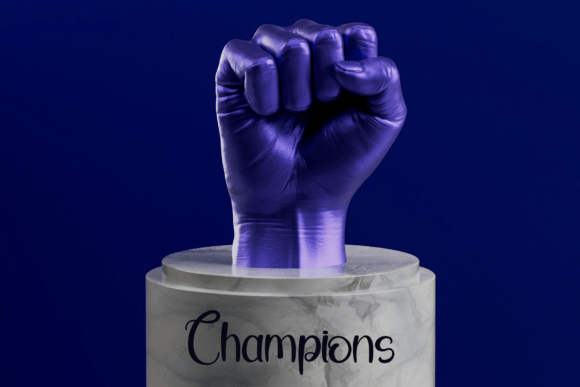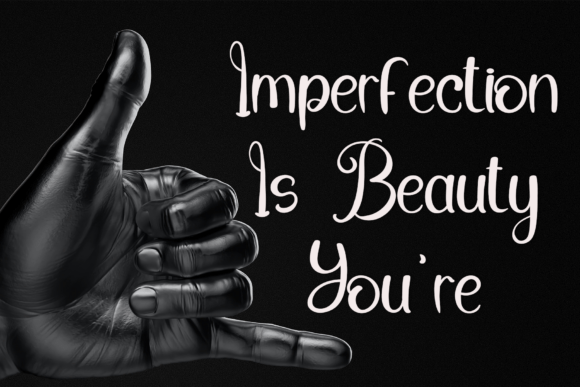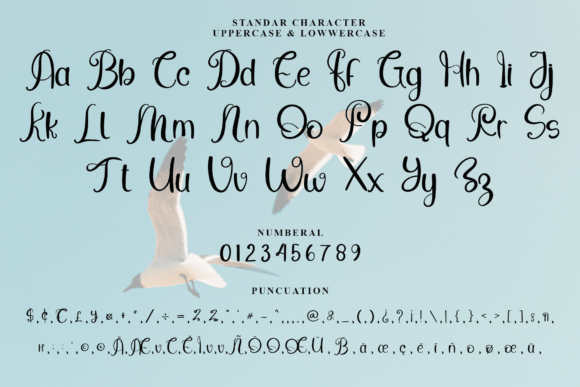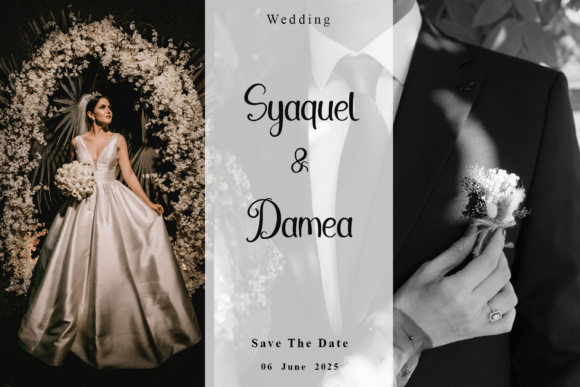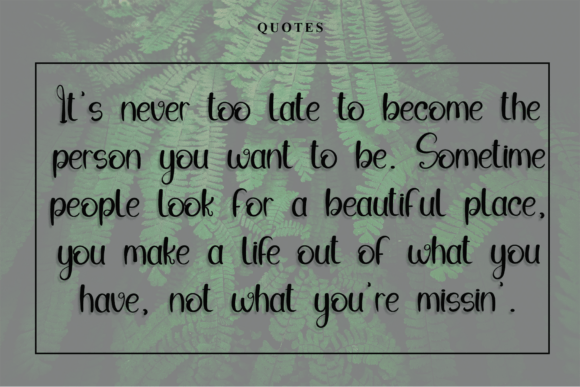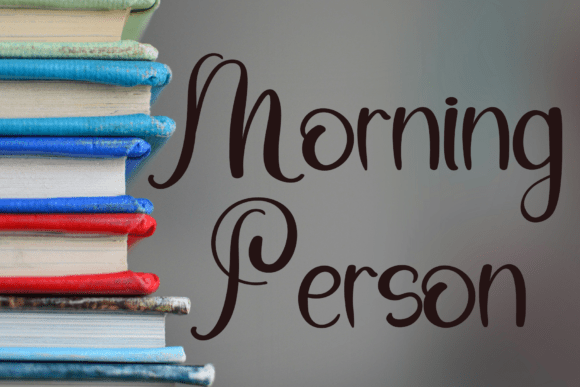
Hello February Font: Elevate Your Designs with Elegance and Class
As a designer or crafter, you’re constantly on the lookout for the perfect font to add a touch of sophistication and style to your projects. Look no further than Hello February, a trendy handwritten font that’s sure to impress. With its contemporary atmosphere and impeccable form, this font is inspired by timeless classic calligraphy and is the perfect addition to any design project.
The Inspiration Behind Hello February
Hello February is a font that’s deeply rooted in tradition, yet boldly steps into the modern era. Its creator drew inspiration from the classic calligraphy of the past, crafting a font that’s both elegant and current. The result is a beautiful, handwritten font that’s perfect for adding a touch of refinement to any design.
Key Features of Hello February
- Trendy Handwritten Style: Hello February boasts a fresh, modern look that’s perfect for designers who want to add a personal touch to their work.
- Contemporary Atmosphere: This font has a distinctly modern feel that’s sure to appeal to designers who want to create work that’s sleek and current.
- Impeccable Form: Every letter in Hello February is carefully crafted to ensure that the font is not only beautiful but also highly legible.
- Timeless Classic Calligraphy Inspiration: The font’s inspiration from classic calligraphy gives it a timeless quality that’s sure to endure.
Uses for Hello February
Hello February is an incredibly versatile font that can be used in a wide range of design projects, including:
- Logos and Branding: Add a touch of elegance to your logo or branding with Hello February.
- Wedding Invitations and Stationery: This font is perfect for creating beautiful, bespoke wedding invitations and stationery.
- Packaging Design: Hello February can add a touch of sophistication to any packaging design.
- Digital Media: Use this font to create stunning social media graphics, blog posts, and more.
Why Choose Hello February?
With so many fonts to choose from, why should you opt for Hello February? Here are just a few reasons:
- Elegance and Class: This font adds a level of sophistication to any design project.
- Unique and Memorable: Hello February is a distinctive font that’s sure to make your designs stand out.
- Easy to Read: The font’s impeccable form ensures that it’s highly legible, even at small sizes.
Tips for Using Hello February
To get the most out of Hello February, here are a few tips:
- Pair with a Sans-Serif Font: Combine Hello February with a sans-serif font for a striking contrast.
- Experiment with Colors: Try out different colors to find the perfect match for your design.
- Use it Sparingly: Because Hello February is such a distinctive font, it’s best used sparingly to avoid overwhelming the design.
Hello February is a truly exceptional font that’s sure to elevate any design project. With its elegant, handwritten style and impeccable form, it’s the perfect choice for designers and crafters who want to add a touch of sophistication to their work. Whether you’re creating logos, wedding invitations, or packaging design, Hello February is the perfect addition to your design toolkit.